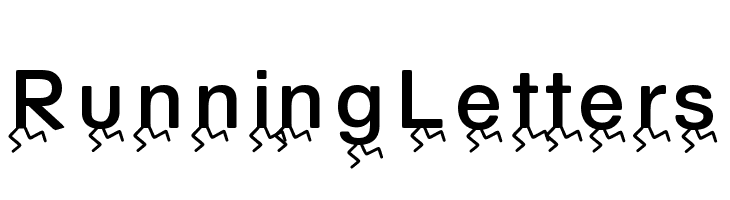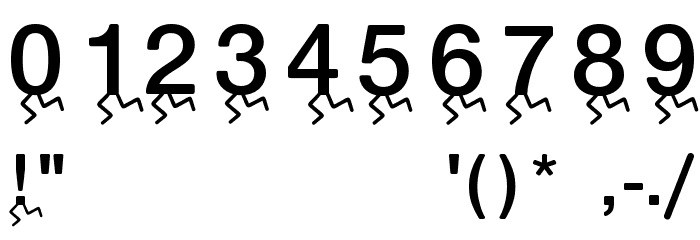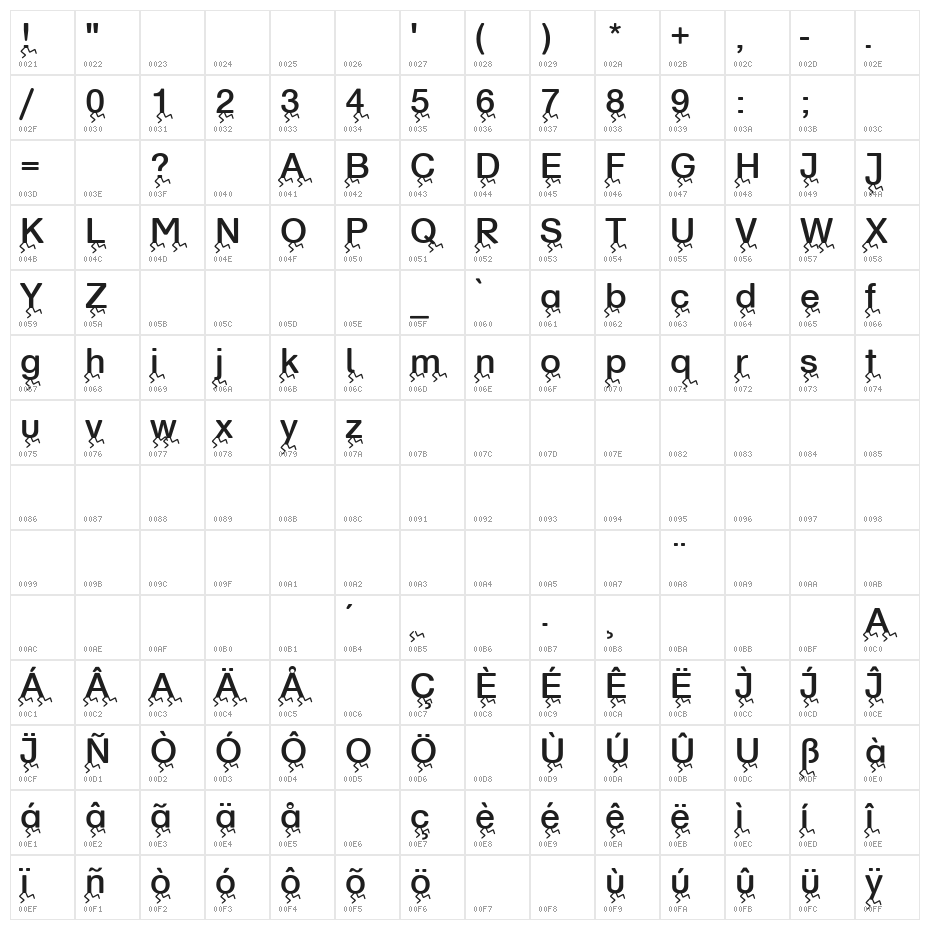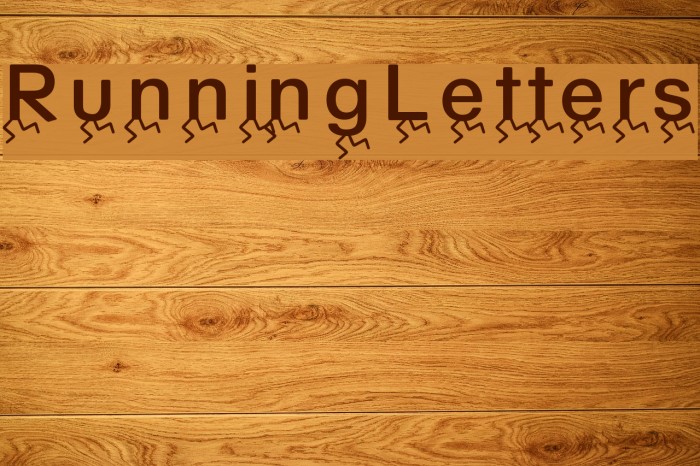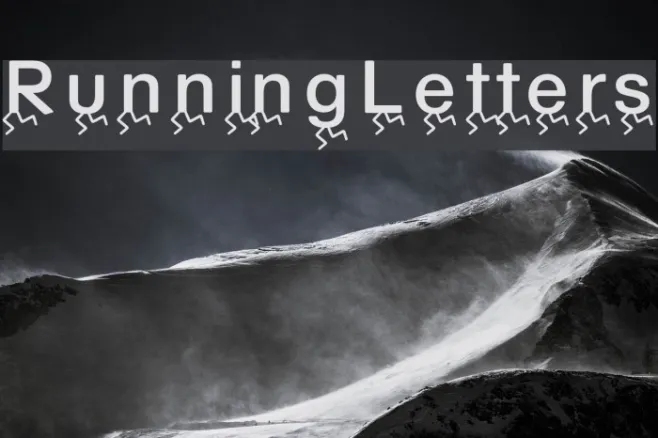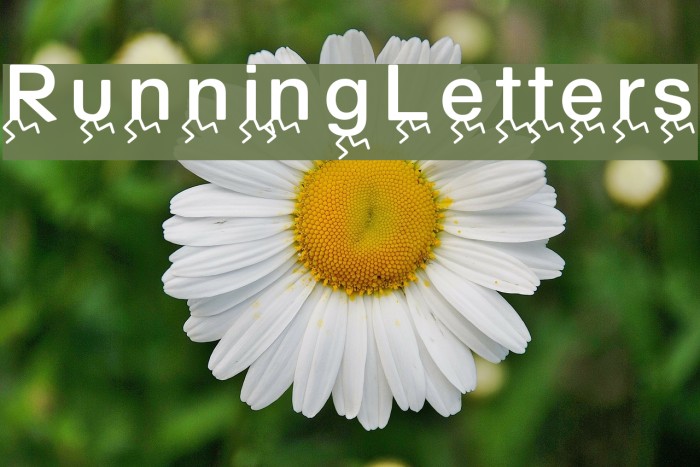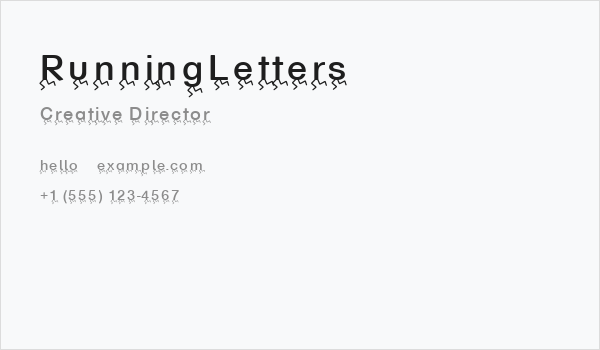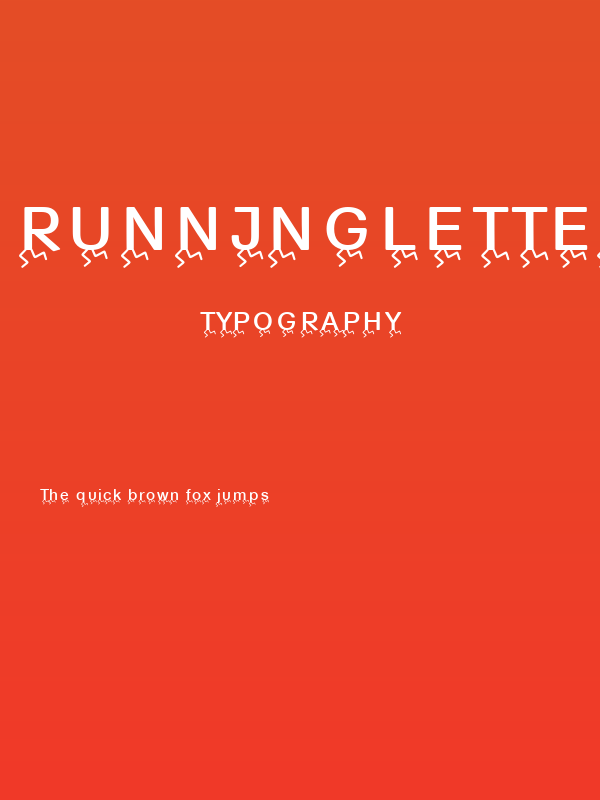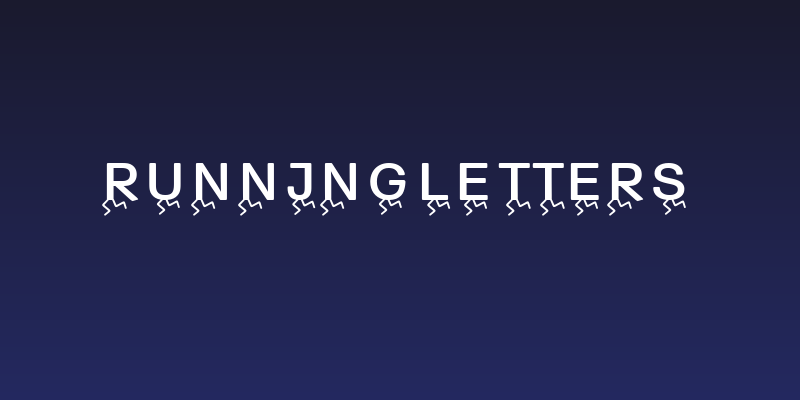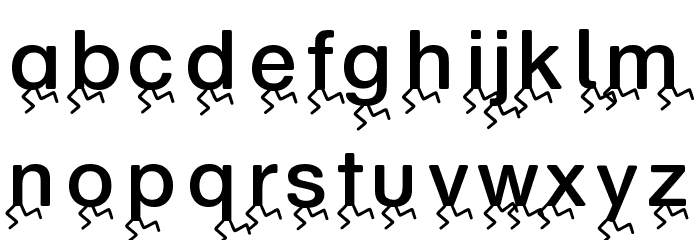
RunningLetters Font
RunningLetters Description
This playful and whimsical font features characters that appear to be running, with small legs attached to each letter and number. The design is bold and eye-catching, making it ideal for projects that require a fun and energetic vibe. The uppercase and lowercase letters, as well as numbers and special characters, maintain a consistent style, ensuring uniformity across different uses. The font's unique characteristic is its animated appearance, which adds a dynamic element to any text. It is particularly suitable for children's materials, playful branding, or any creative project that seeks to convey movement and excitement.
| Overall Style | Playful, Energetic |
| Proposed Projects | Ideal for children's books, playful branding, event posters, or any project needing a fun and dynamic touch. |